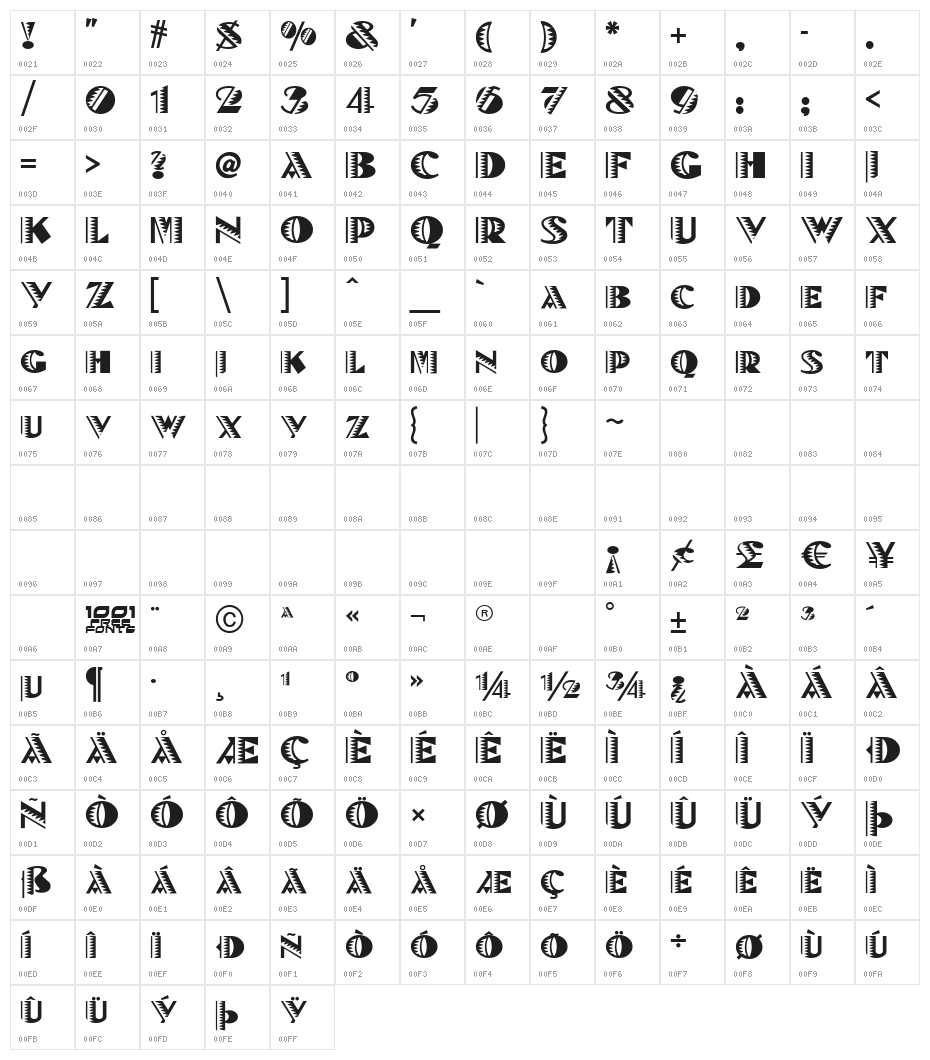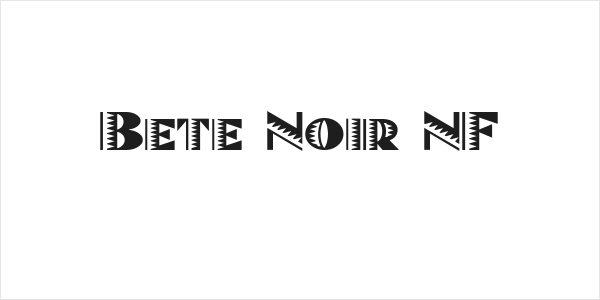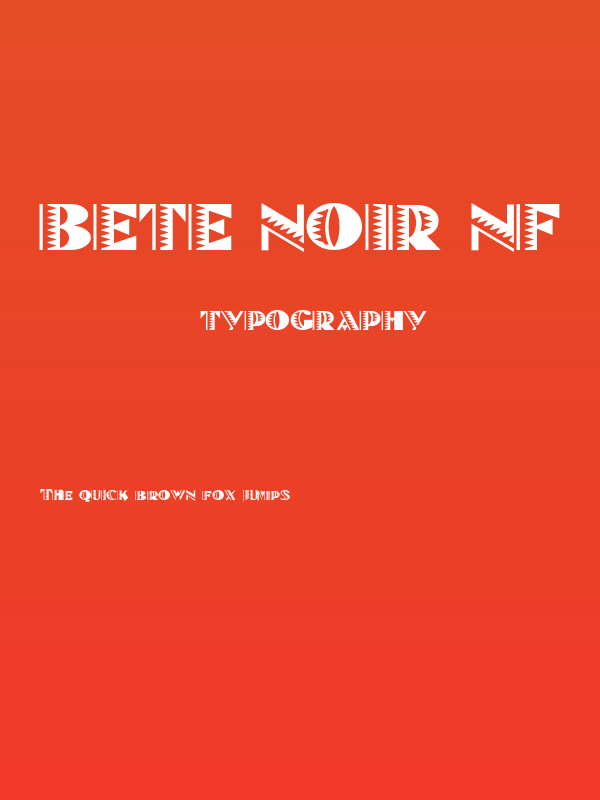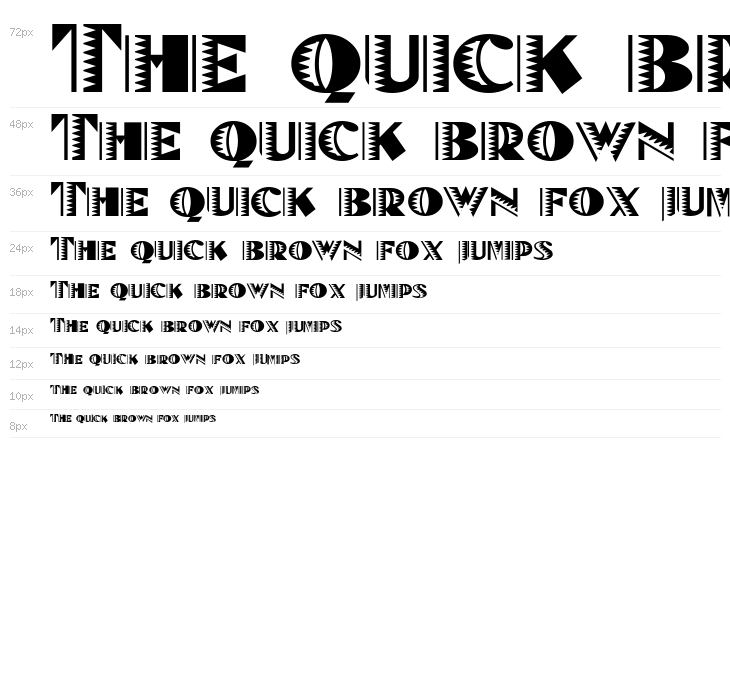
Bete Noir NF Font
Bete Noir NF Description
This font features a bold and striking design with a unique zigzag pattern running through each character, creating a dynamic and eye-catching effect. The letters are uppercase and maintain a consistent height, while the numbers and special characters follow the same stylistic approach. The design is reminiscent of Art Deco influences, with a modern twist that adds a sense of movement and energy. The bold strokes and sharp angles make it ideal for attention-grabbing headlines or artistic projects. The overall aesthetic is both decorative and contemporary, perfect for making a statement.
| Proposed Projects | Ideal for poster design, branding, album covers, and any project requiring a bold, artistic touch. |